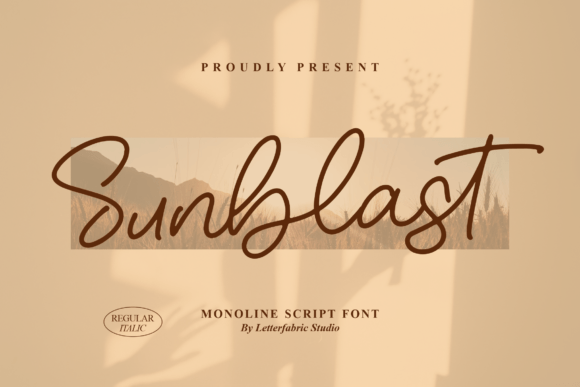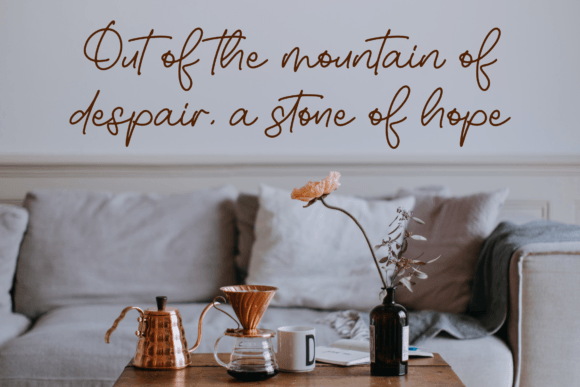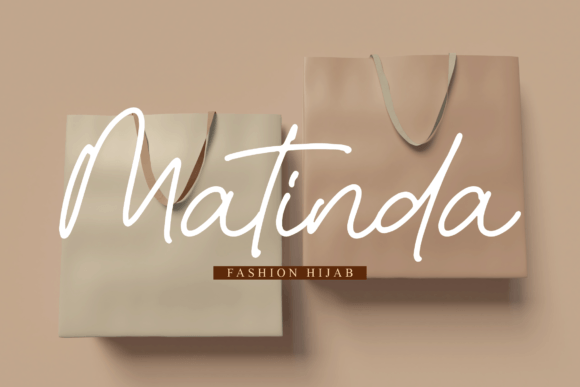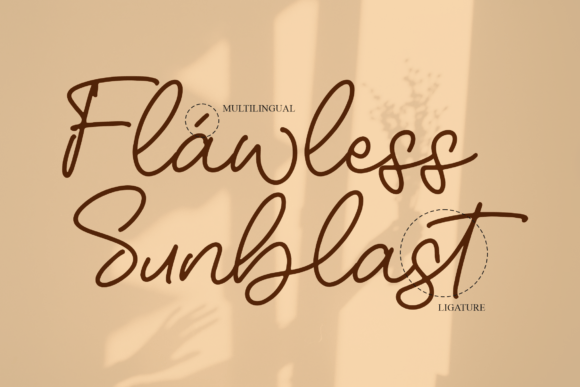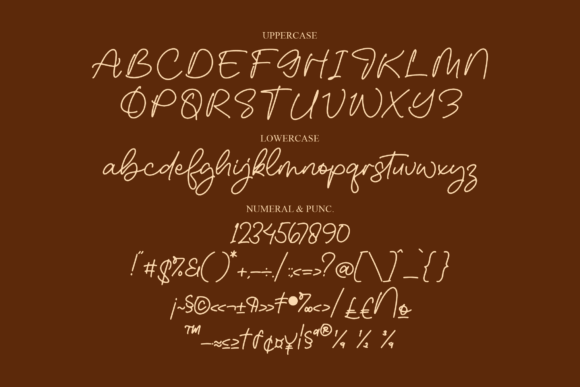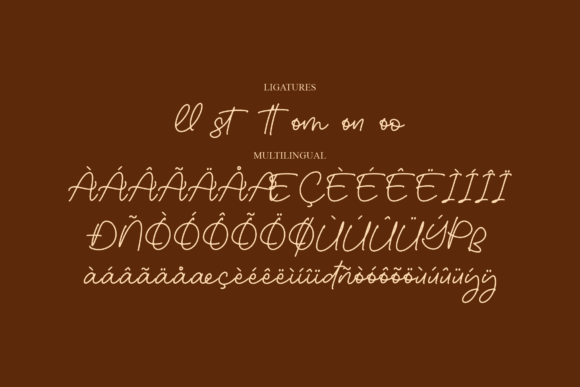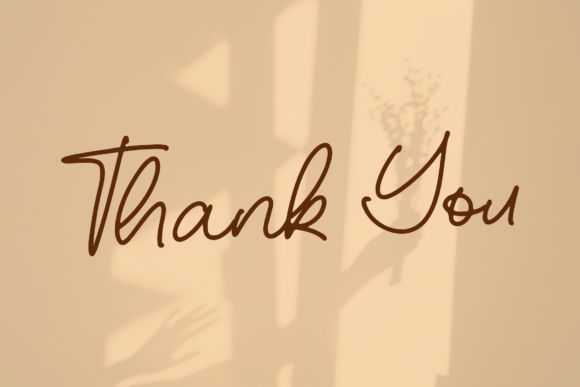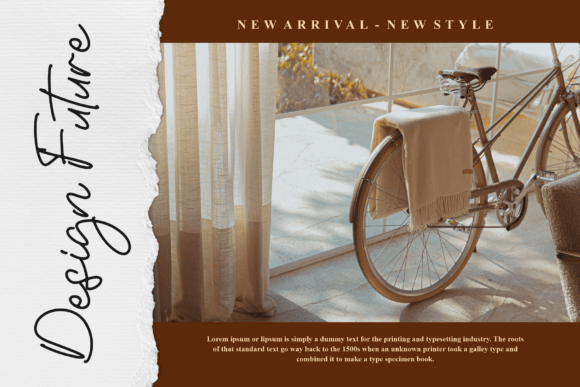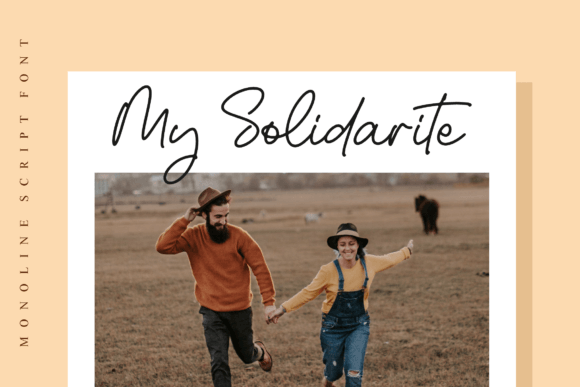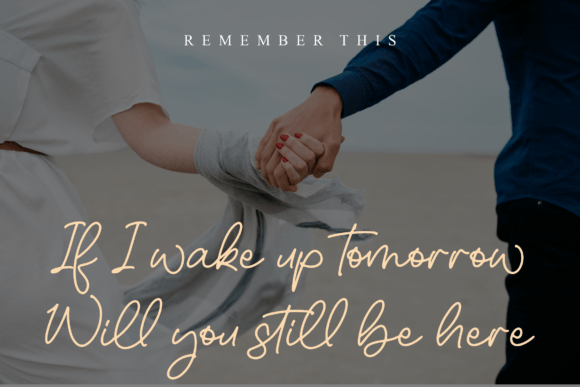
Sunblast Font
About Sunblast Font
Introducing Sunblast, a captivating monoline script font from Letterfabric Studio. This versatile typeface is perfect for a wide range of projects, including logos, branding, homeware designs, product packaging, quotes, posters, shopping bags, t-shirts, book covers, name cards, invitation cards, greeting cards, labels, photography, watermarks, special events, and any other project that could benefit from a beautiful script font.
Sunblast’s monoline script style adds a touch of elegance and sophistication to your designs. Its clean and flowing lines make it a versatile choice for various creative applications, allowing it to seamlessly integrate into different design contexts.
Whether you’re working on a branding project, designing product packaging, or creating visuals for special events, Sunblast brings a beautiful script taste that enhances the overall aesthetic. The font’s adaptability makes it suitable for both digital and print applications, ensuring a consistent and delightful look across various mediums.